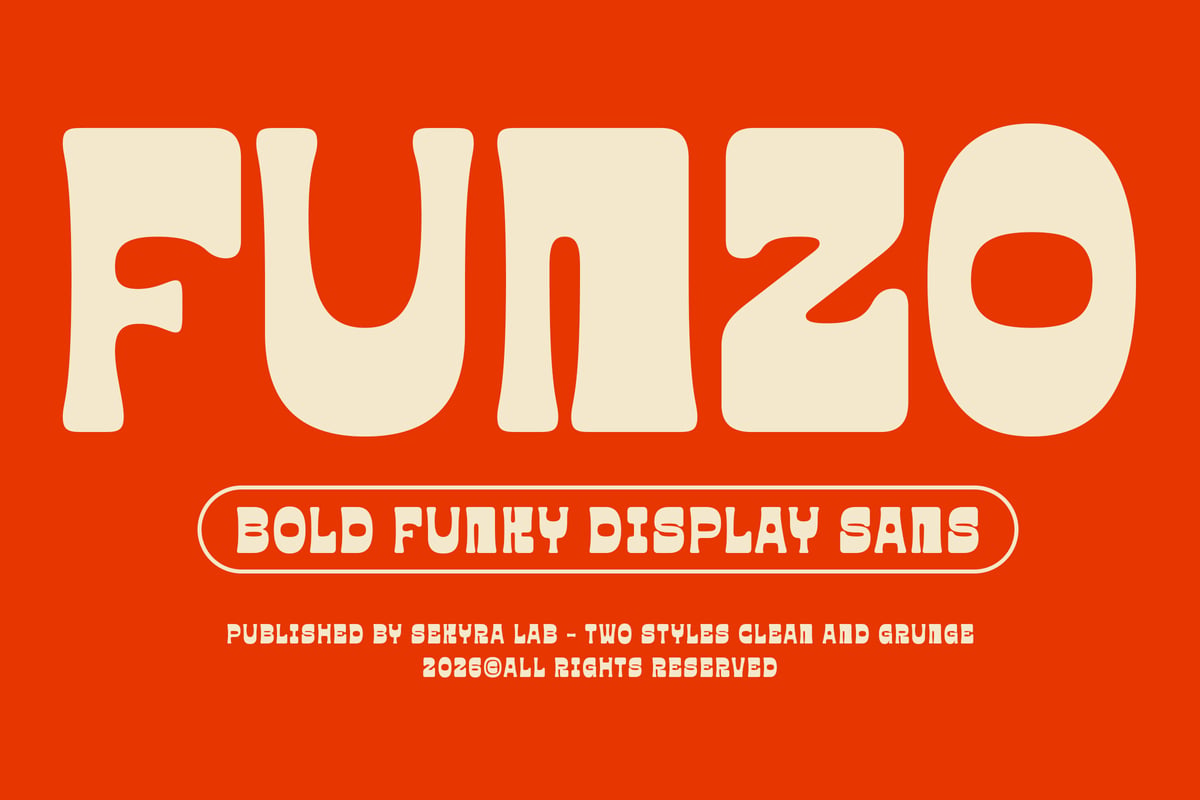
Funzo Font
Transform your designs with Funzo's bold, chunky personality that radiates playful energy and retro charm.
This distinctive display font features soft curves and groovy shapes that create eye-catching typography with warmth and expressiveness. Funzo's strong visual presence instantly elevates any project with its funky twist.
Choose between two versatile styles: clean for smooth modern aesthetics or grunge for textured vintage vibes. This flexibility allows you to adapt the typeface to match your creative vision perfectly.
Funzo excels across diverse creative applications including branding projects, eye-catching posters, product packaging, social media graphics, and food design work. Its friendly and bold character particularly shines in fun, youthful, and expressive design themes.